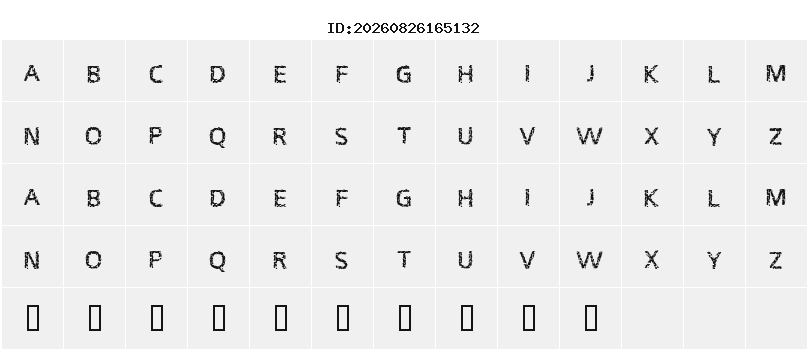
• Font Name: WALL PAINTING
• Designer: SAJI JOHNNY KUNDUKULAM
About WALL PAINTING.ttf
WALL PAINTING.ttf is a modern, elegant sans-serif font designed for ultimate readability and visual harmony. Perfect for branding, headlines, web design, and print materials.